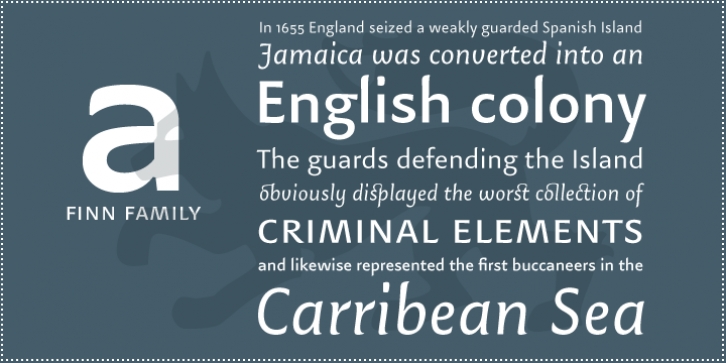
Publisher: Lazydogs
Finn has been carefully designed as a body typeface by Oliver Linke and especially tailored to increase readability of large amounts of text. Particularly spacing and kerning played an important role in the design process.
Although a text typeface requires rather ordinary letterforms, Finn was furnished with charming details, that produce its distinctive warm and human appearance, without disturbing the process of reading. This makes it suitable for various typo- graphic fields in contemporary graphic design.